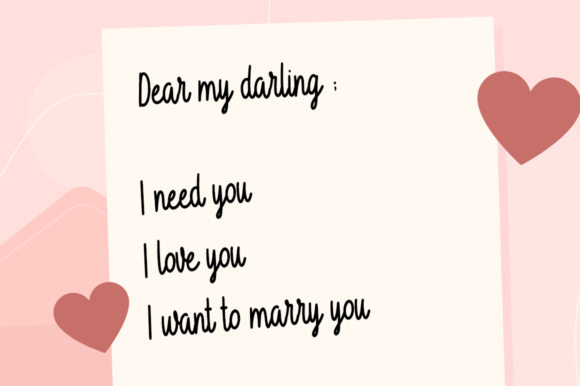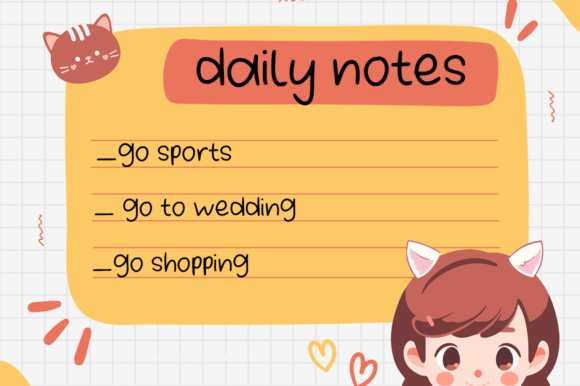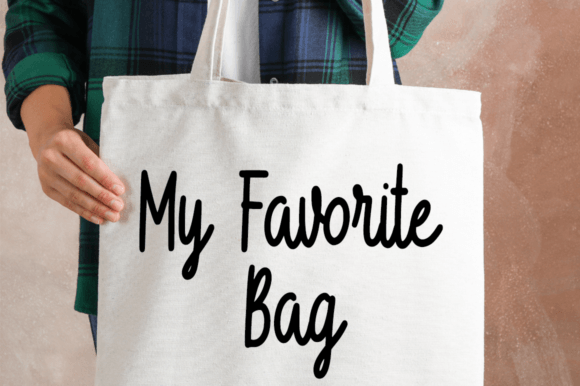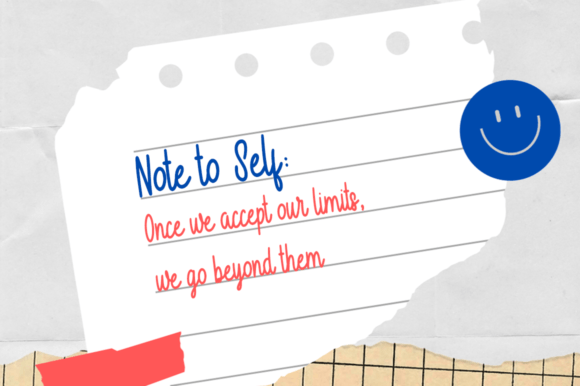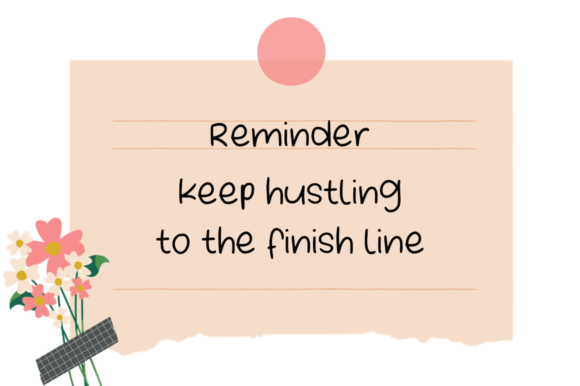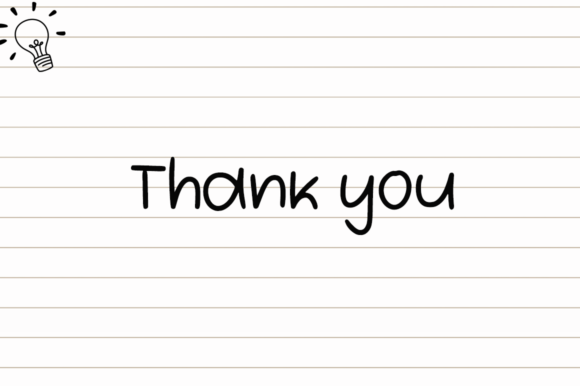
Note Simple Font – Free Download
Introduction to Note Simple Font
The font is made with natural and elegant handwriting, suitable for the needs of those of you who want to use it for a variety of amazing purposes.
Maybe you can use this in various media to make it look attractive and natural .
Key Features of Note Simple Font
Why Choose Note Simple Font?
Note Simple Font offers exceptional quality and versatility, making it a valuable addition to your design toolkit. Whether you’re creating for personal projects or commercial use, Note Simple Font delivers professional results.